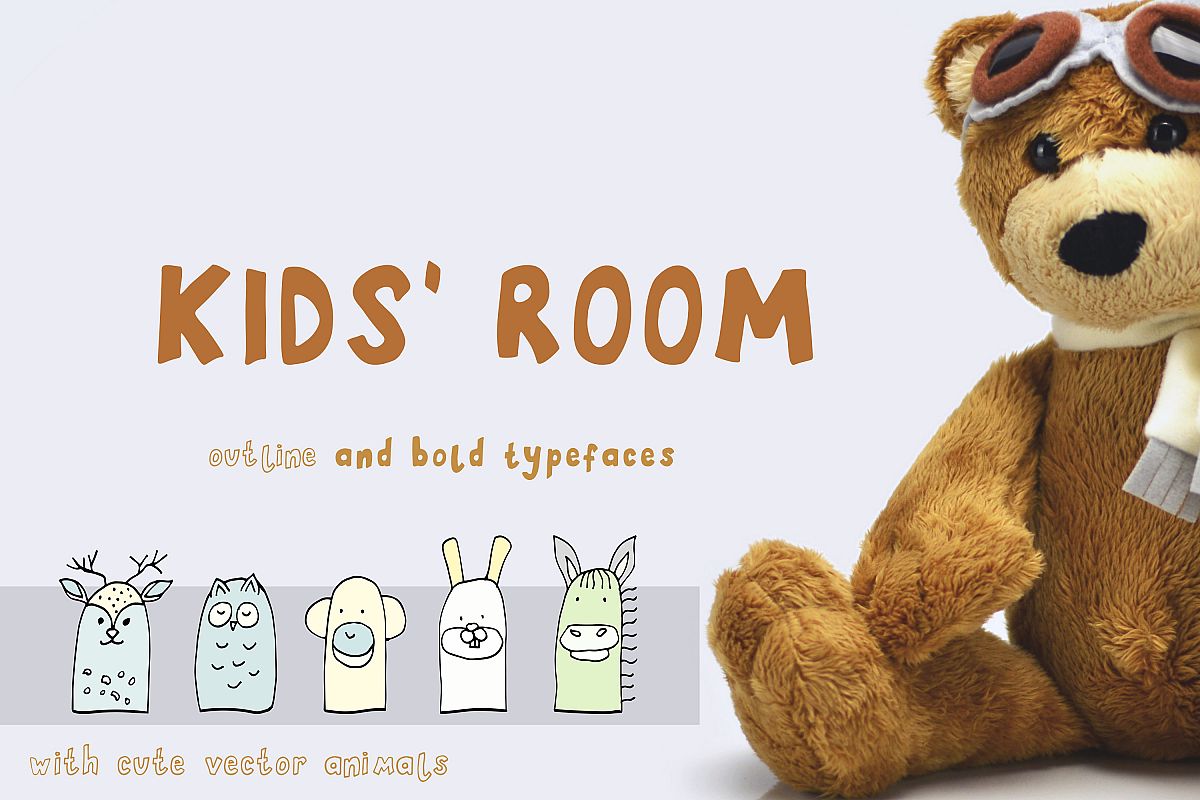
Kids' Room typeface with Outline and Solid versions
Kids' Room typeface is ready for anything, works well for greeting cards, invitations, quotes, posters, typography art , branding, stationary, design title, blog header, art quote, any purpose to make design project look trendy and slightly childish.
Kids' Room is extra special, handwritten with two styles for versatility: a fun out-lined version and a filled version.